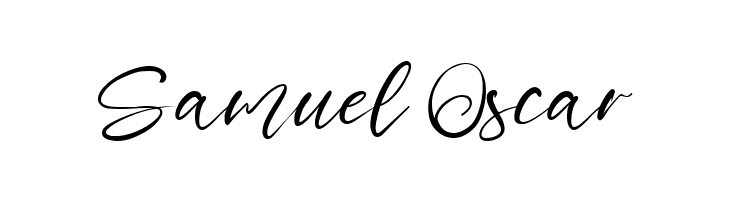
A modern, elegant script font with flowing, interconnected letters.
( Meaghan Wong - 4am.firewish.net )
A playful, handwritten font with a casual and informal style.
A jagged, horror-themed font with sharp, irregular edges.
( Fonts by Blackletter Studio )
A dramatic, Gothic-style font with ornate, angular characters.
A pixelated, monospaced font with a retro digital aesthetic.
A futuristic, geometric outline font with an italic slant.
Condensed serif font for Ethiopic script.
A playful and elegant script font with fluid, connected strokes.
A whimsical, nature-inspired font with leaf embellishments and flowing strokes.
A playful and whimsical font with bold and thin strokes, perfect for creative projects.